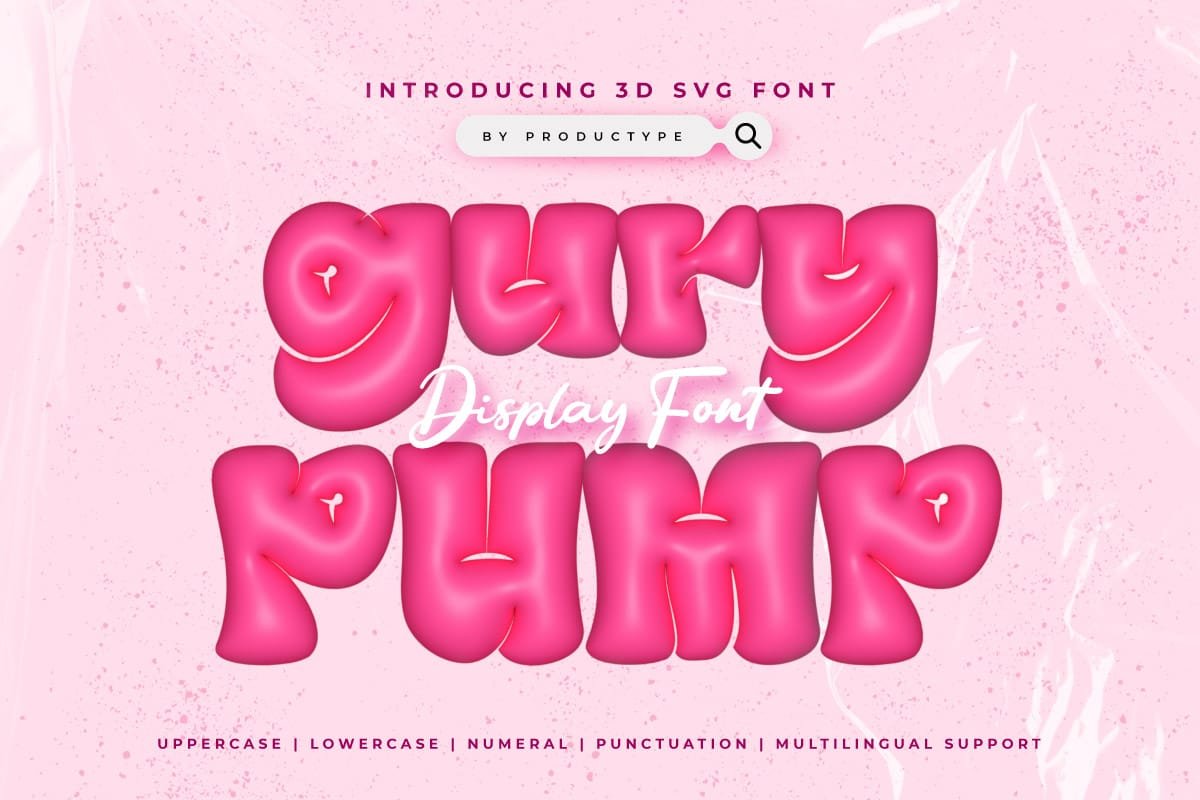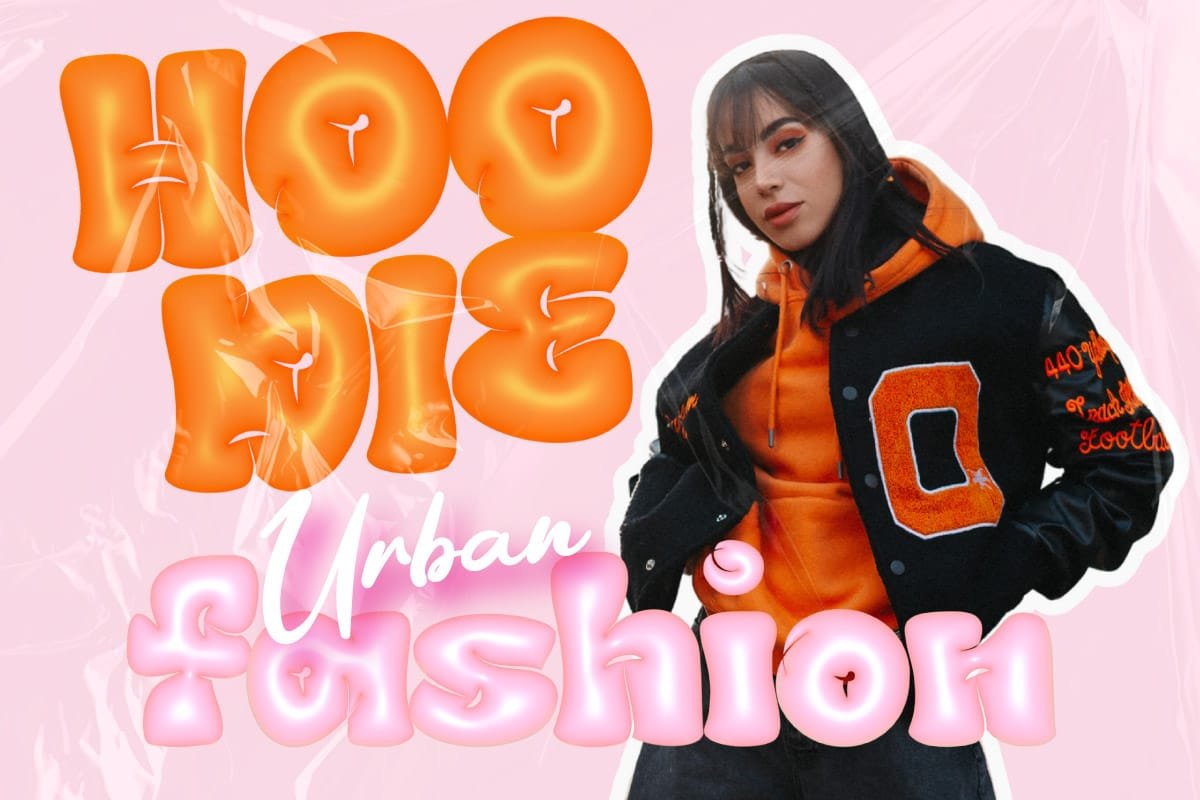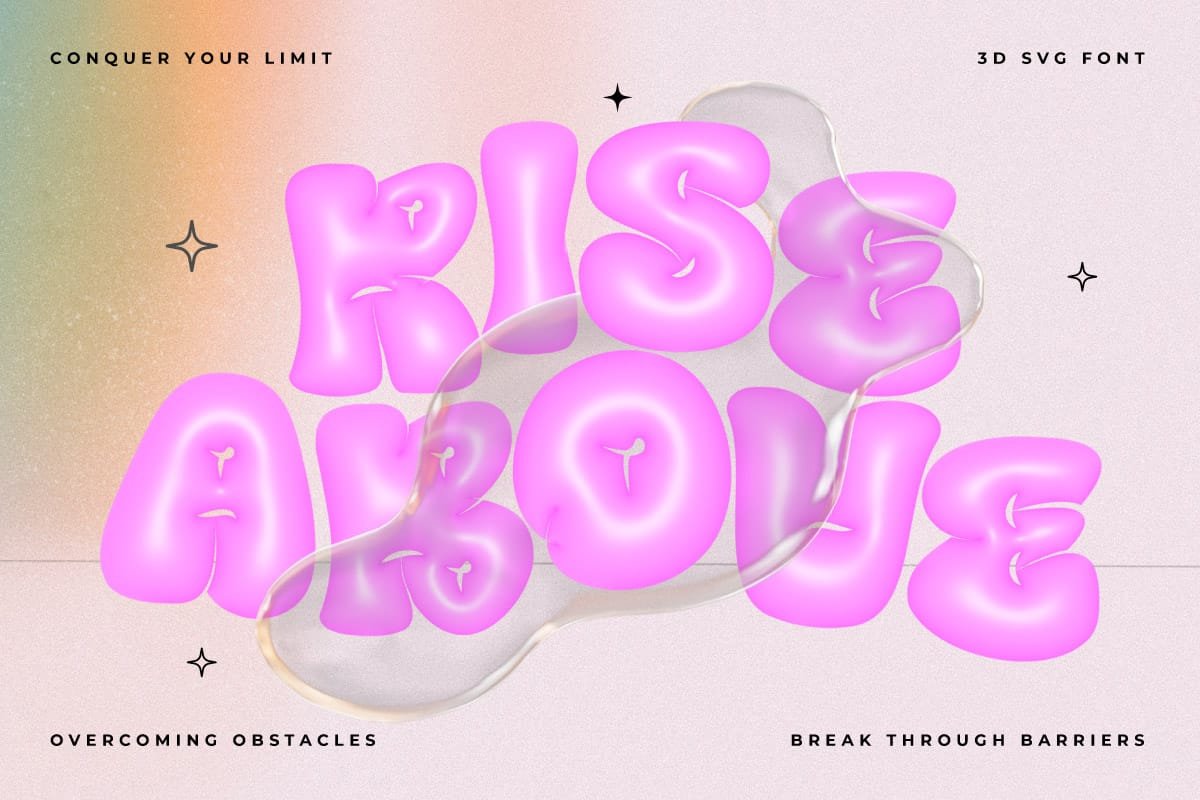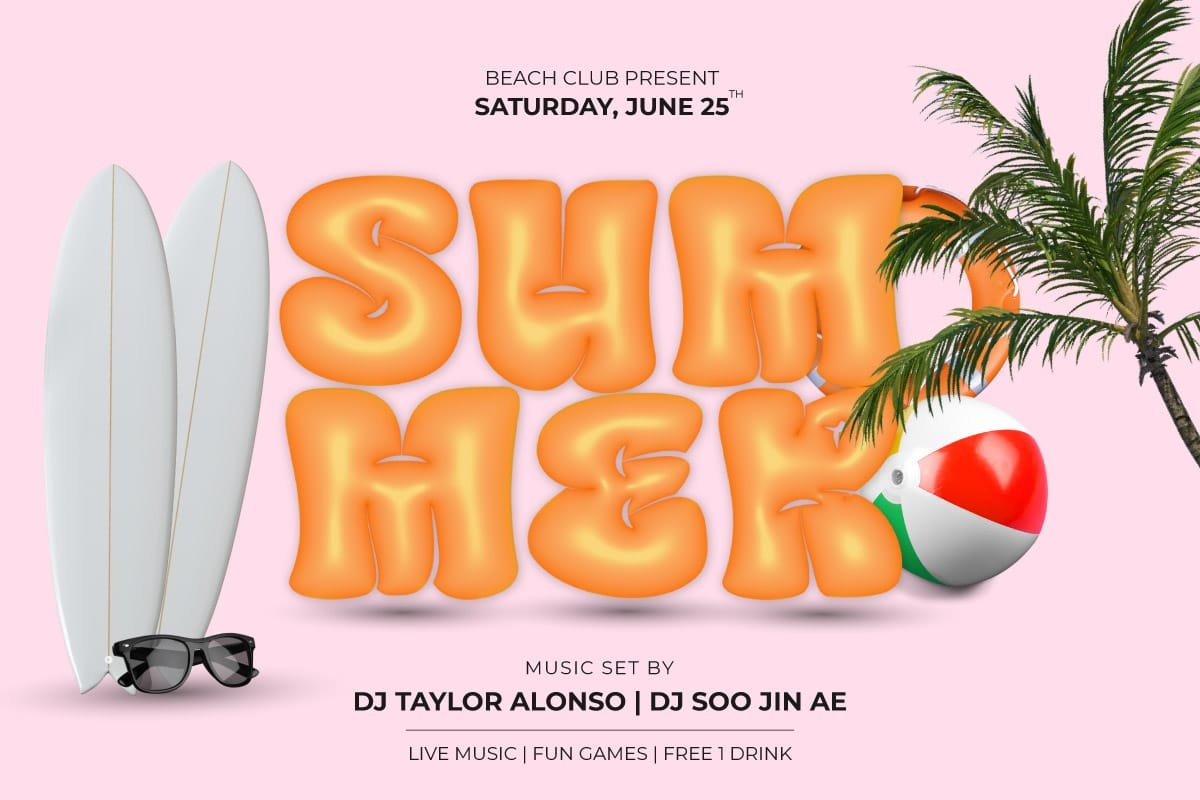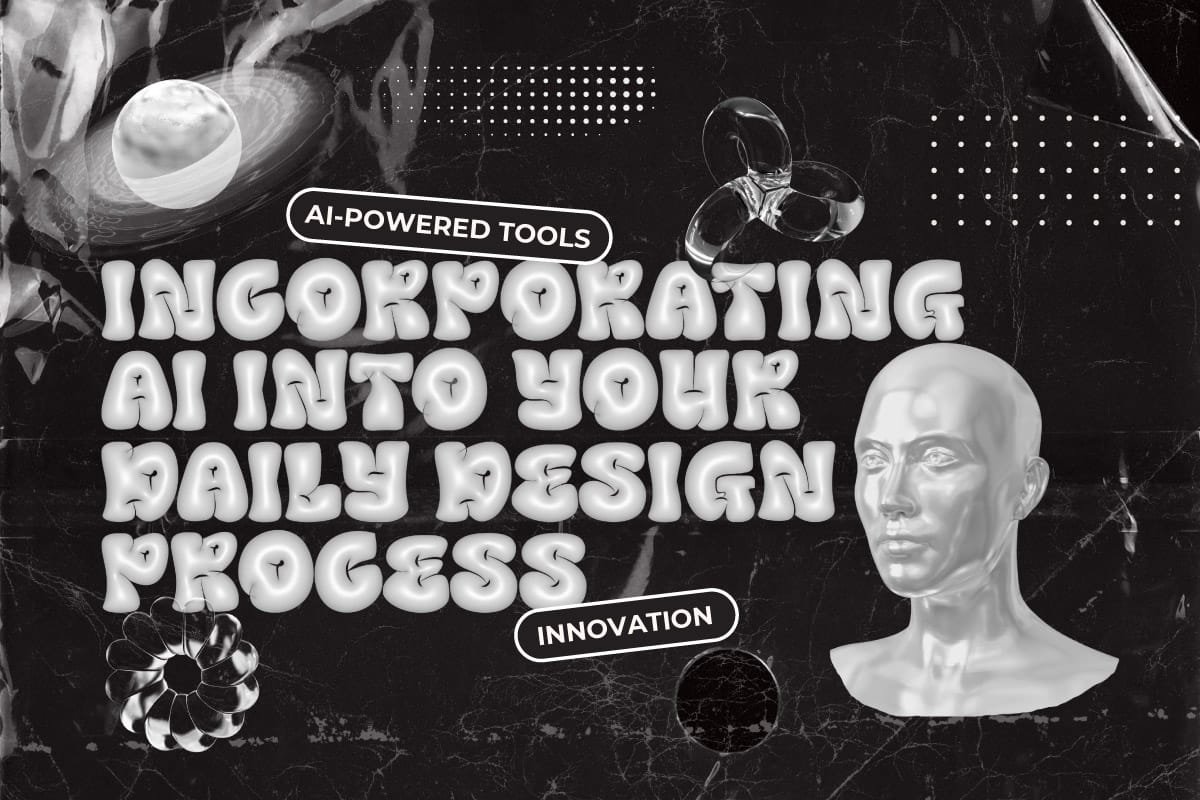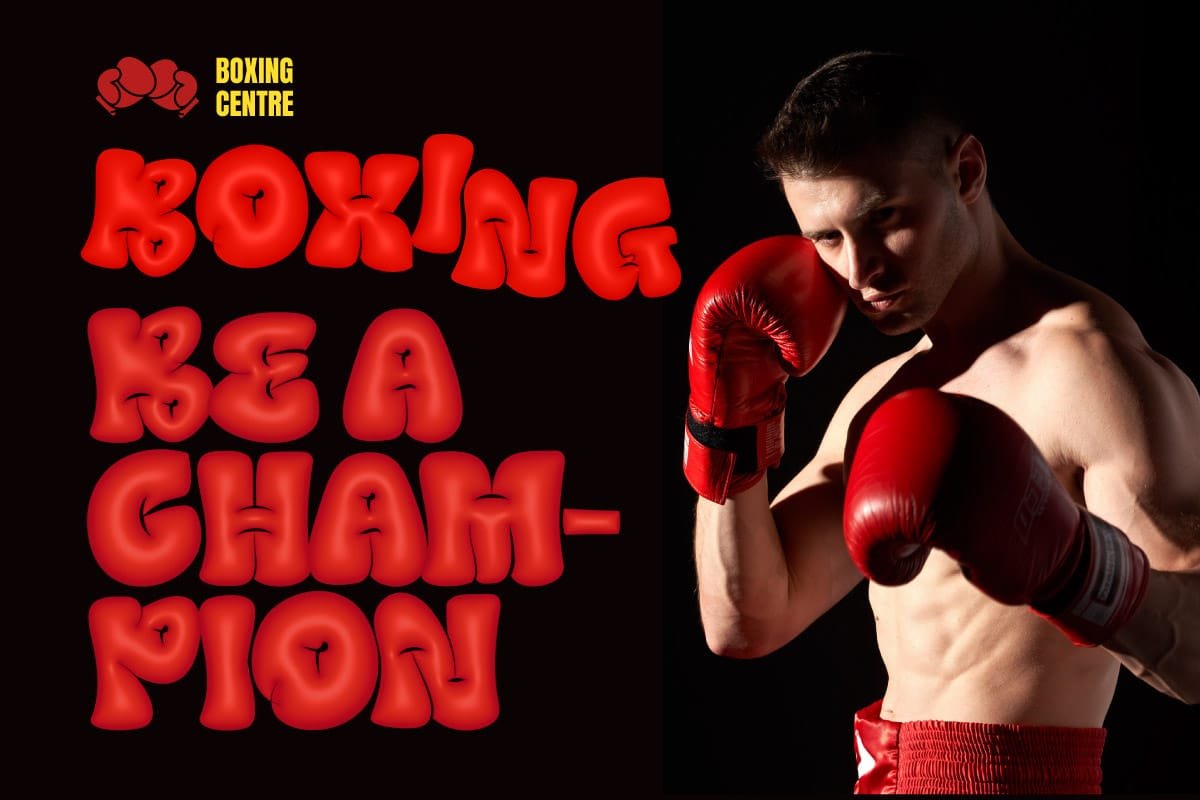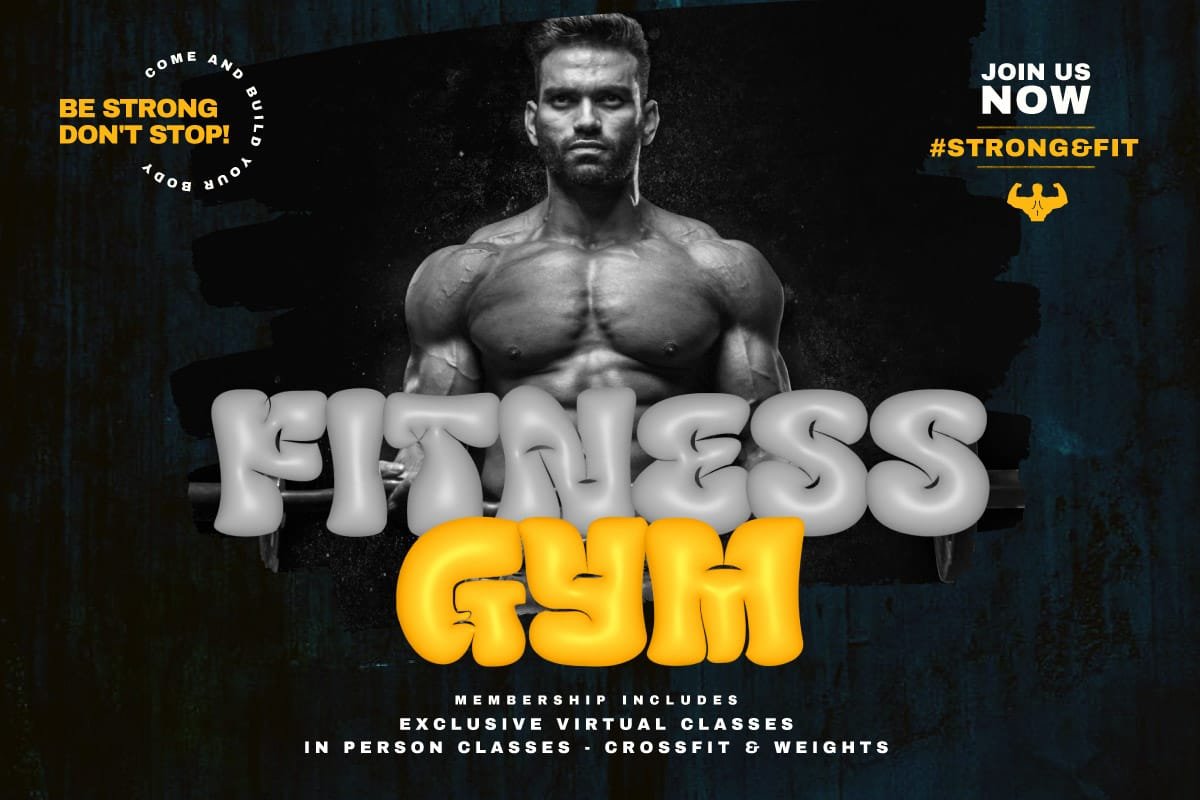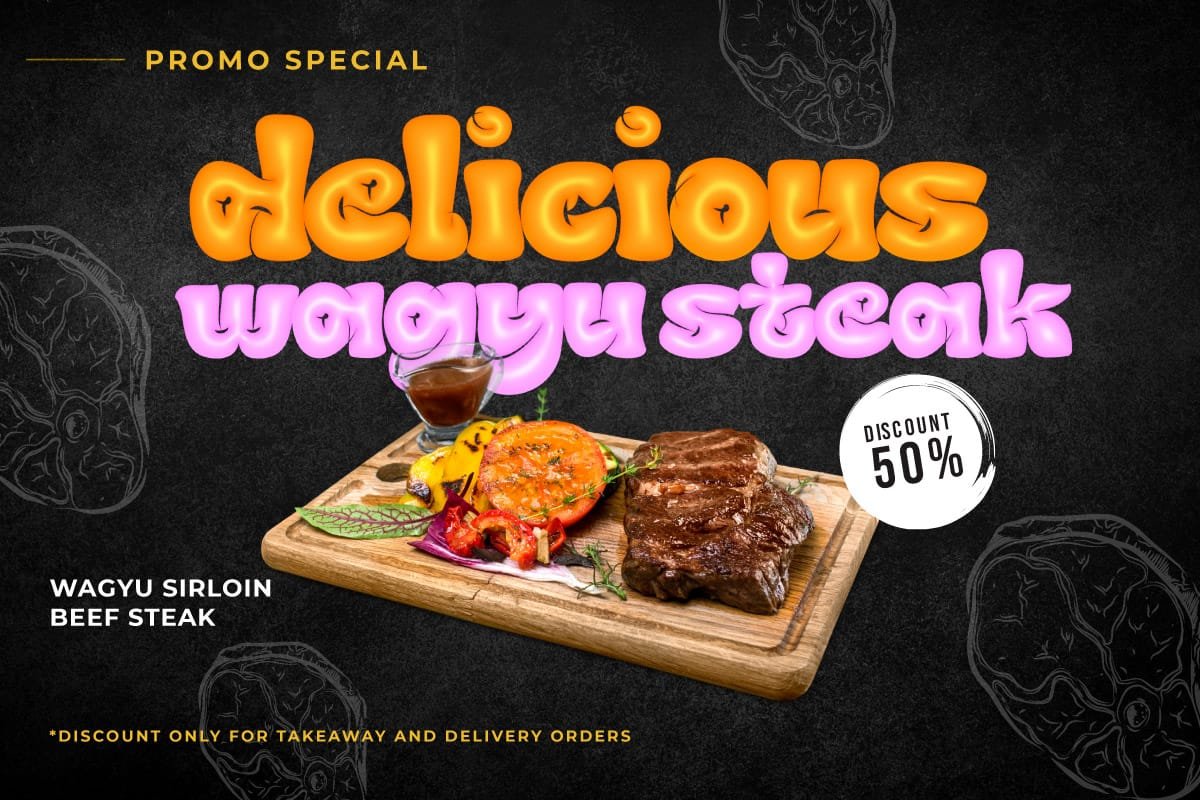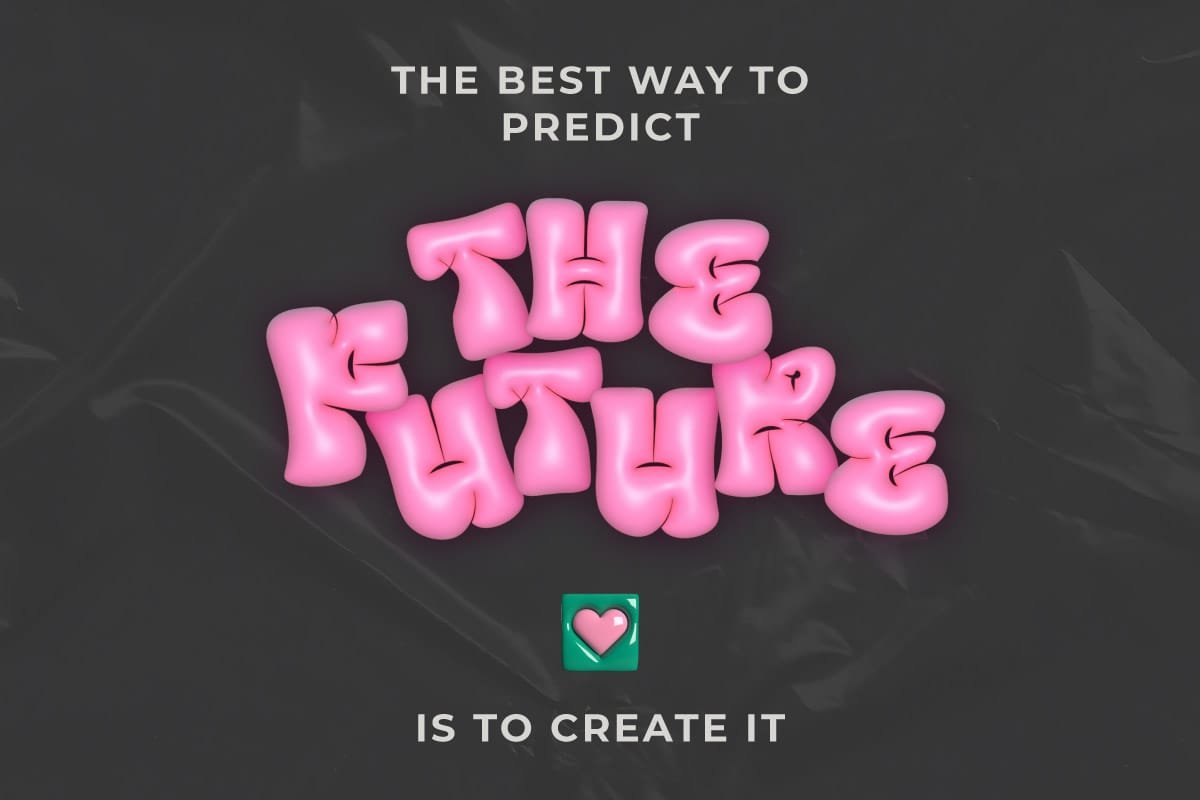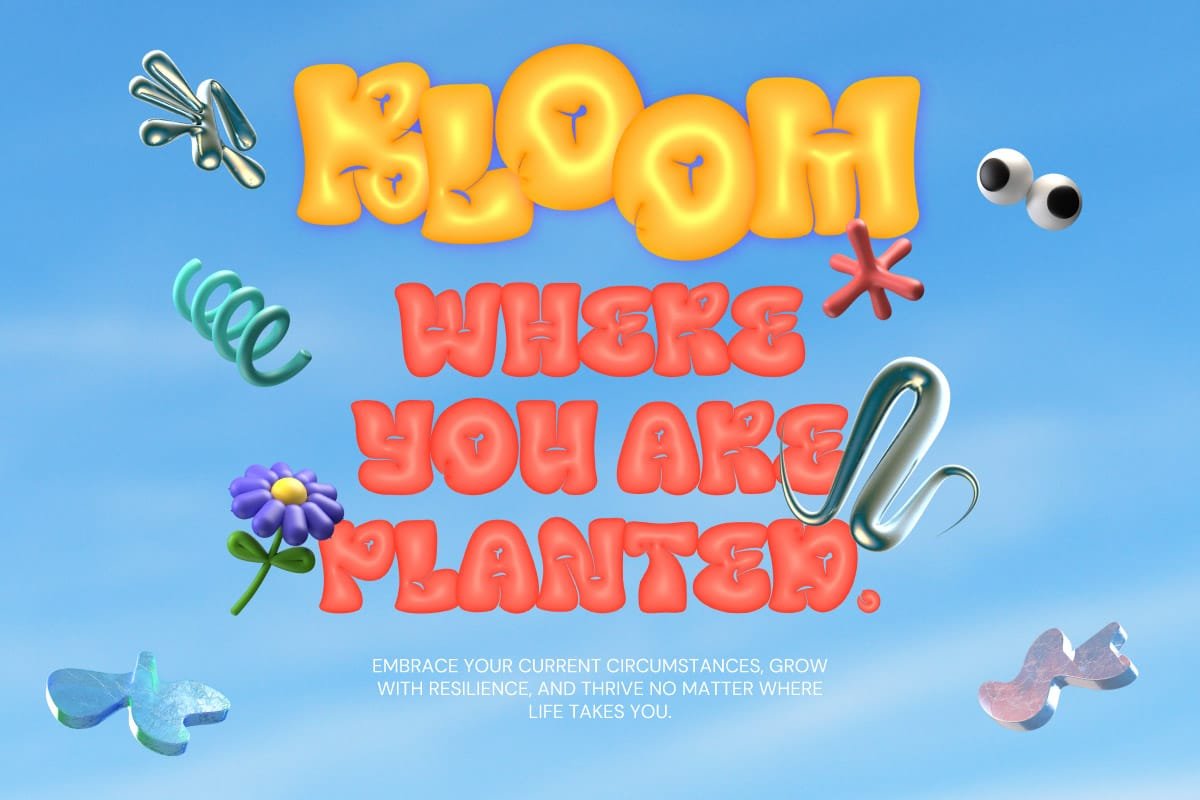
Gury Pump – 3D SVG Font
Elevate your designs to new dimensions with Gury Pump, a mesmerizing 3D SVG font. Crafted to deliver realistic three-dimensional effects, Gury Pump adds depth and texture that make every creative project stand out. Perfect for posters, logos, and social media, this font injects a dynamic touch that brings each letter to life.
Each character in Gury Pump is meticulously designed with extraordinary detail, utilizing SVG technology to produce rich colors and shadows. The unique depth and dimension of this font ensure that your designs not only capture attention but also leave a lasting impression. Gury Pump is the ideal choice for designers looking to add realism and dimension to their work.